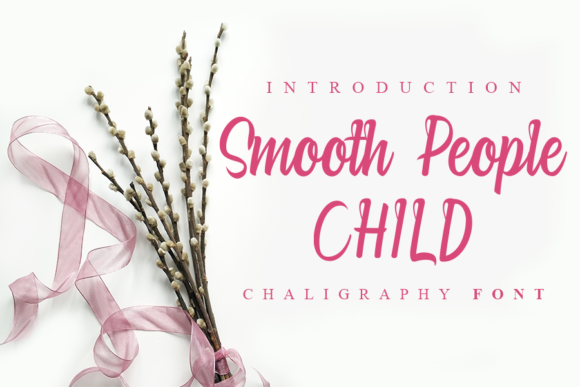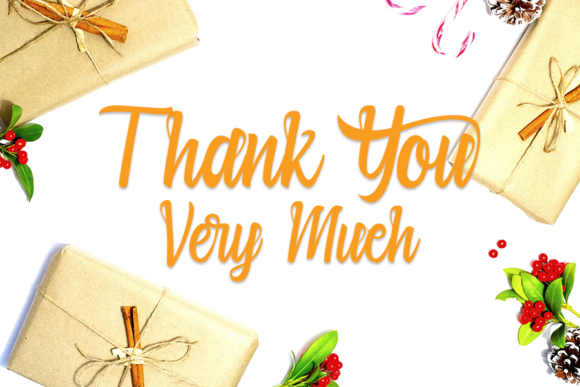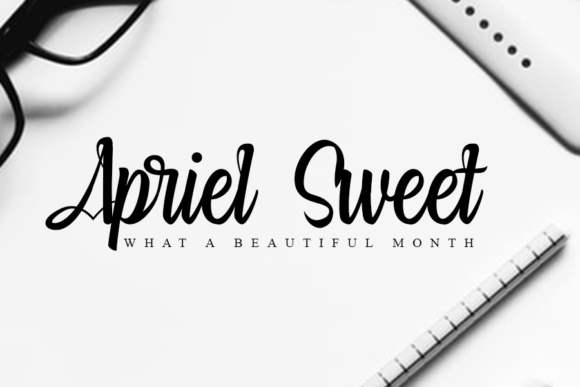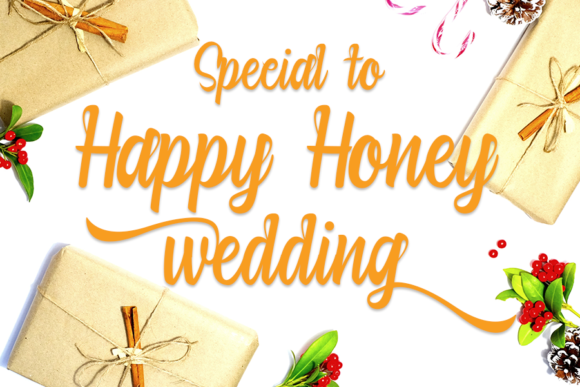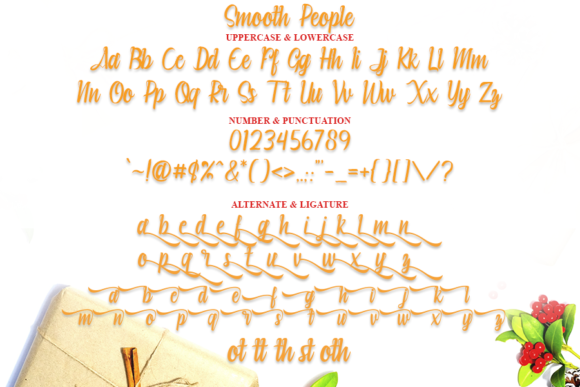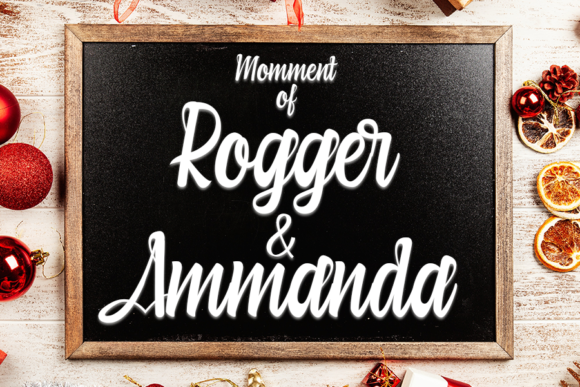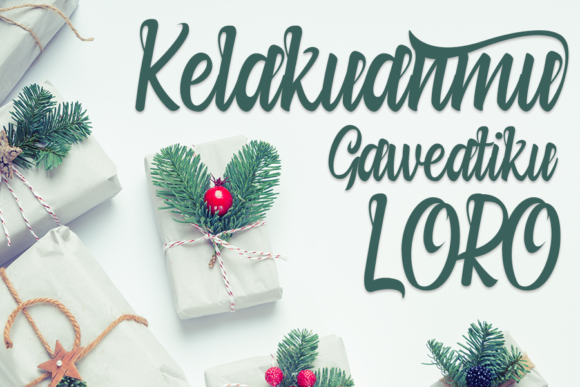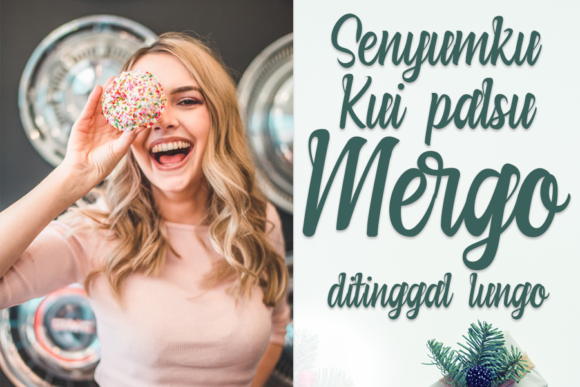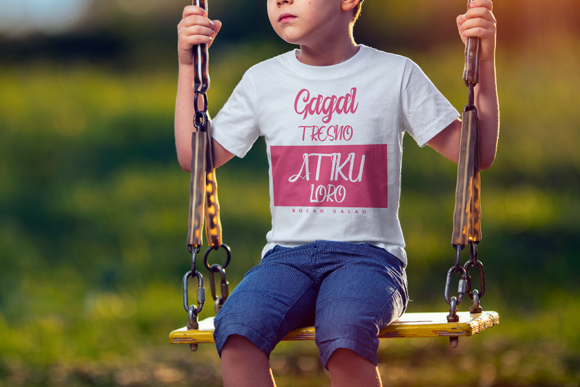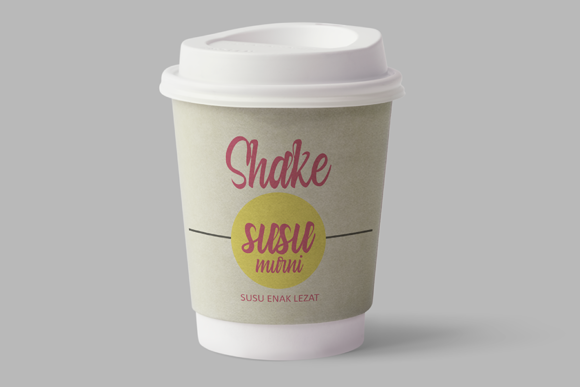
Smooth People Child Font
About Smooth People Child Font
Smooth People Child is a well-balanced handwritten font, matching a wide variety of designs. It will look outstanding in any context, whether it’s being used on busy backgrounds or as a standalone headline!